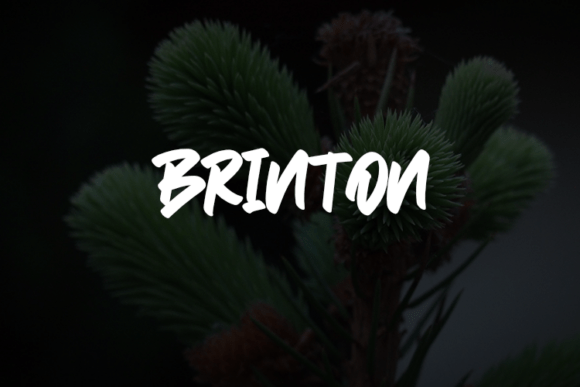
Introduction to Brinton Font
Introducing BRINTON, the seamless choice of typeface designed with apparel and products in mind.
This adaptable font resonates with all design concepts and is compatible with every software BRINTON comes in an easy-to-use otf file, making it an effortless addition to your design toolkit.
Key Features of Brinton Font